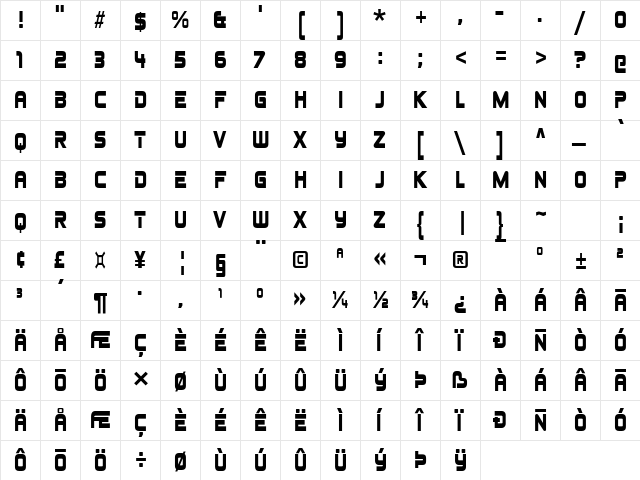
Johnny Fever Regular
Design Context for Johnny Fever Typeface
Johnny Fever is a composed and adaptable typeface that performs quietly and consistently across a wide range of design contexts.